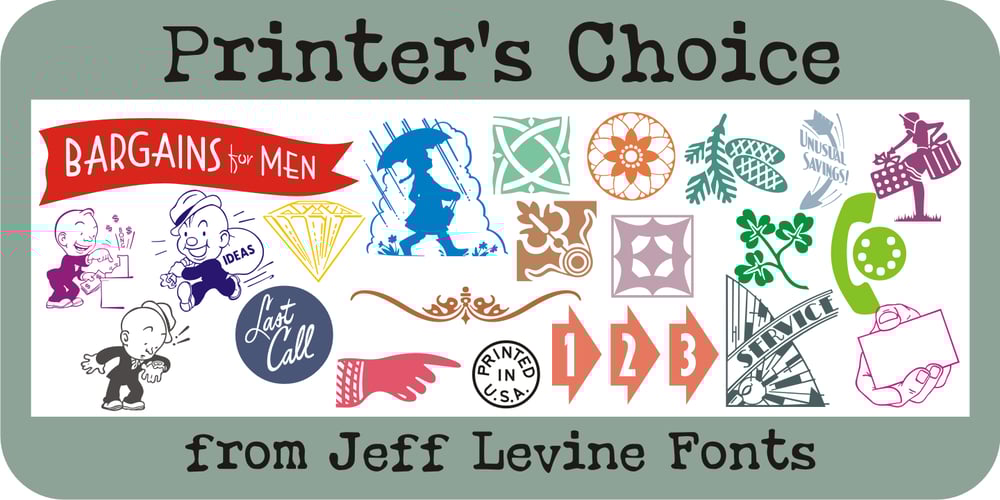
Printers Choice JNL
Printers Choice JNL font
Printers Choice JNL Font Family was designed by Jeff Levine and published by Jeff Levine. Printers Choice JNL contains 1 styles and family package options. Banners, arrows with numbers, cartoon cuts, decorative elements and ad helpers make up the assortment of classic images found in Printers Choice JNL. Each were carefully re-drawn from vintage sources to offer a wide variety of topics and uses.